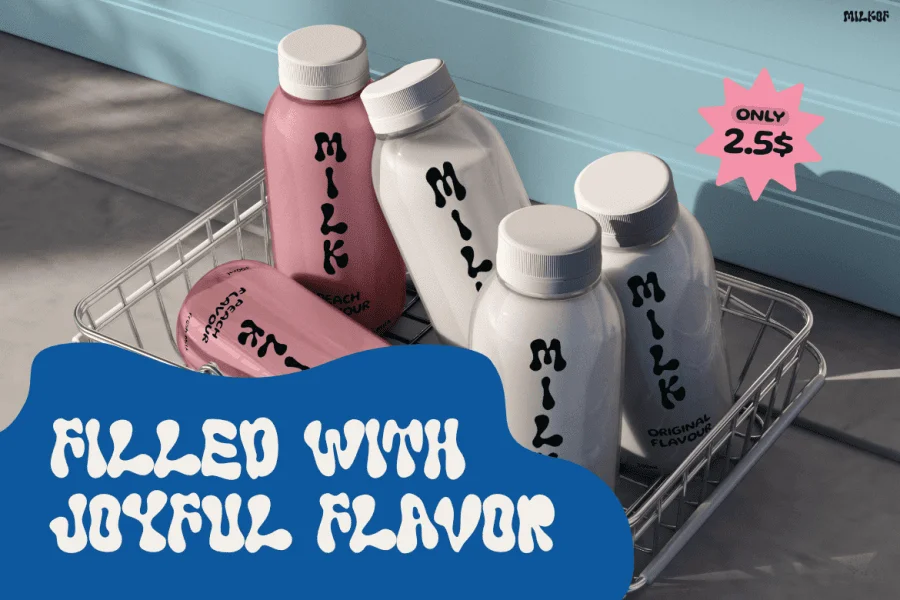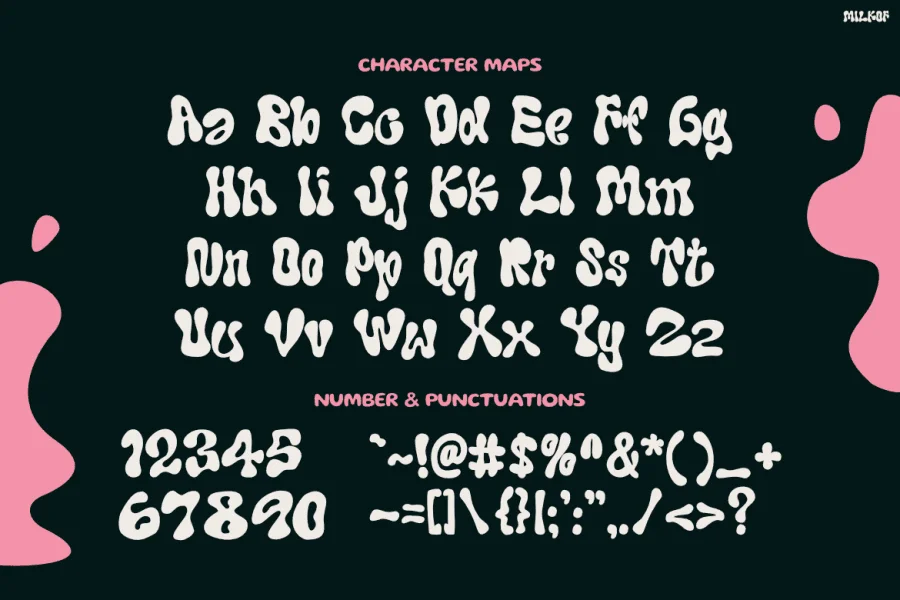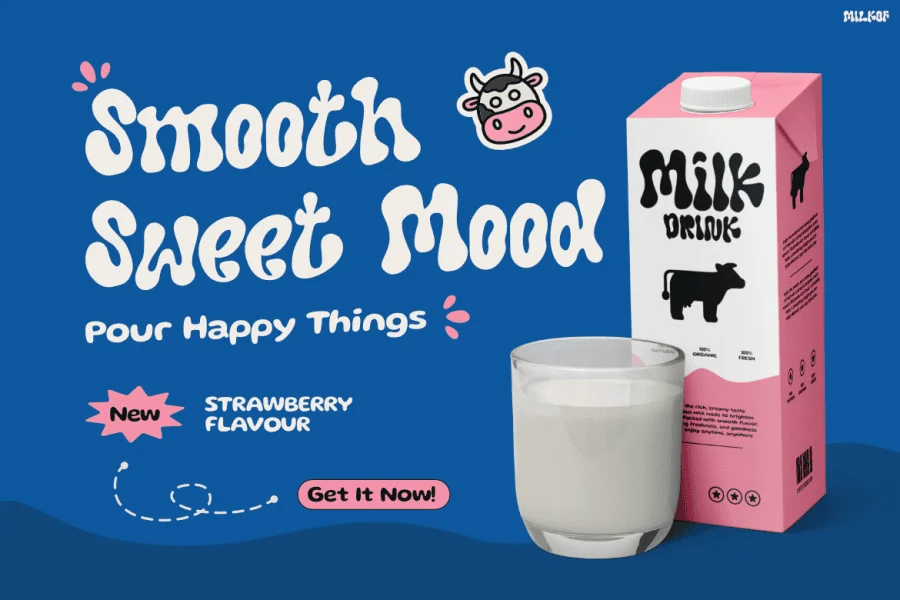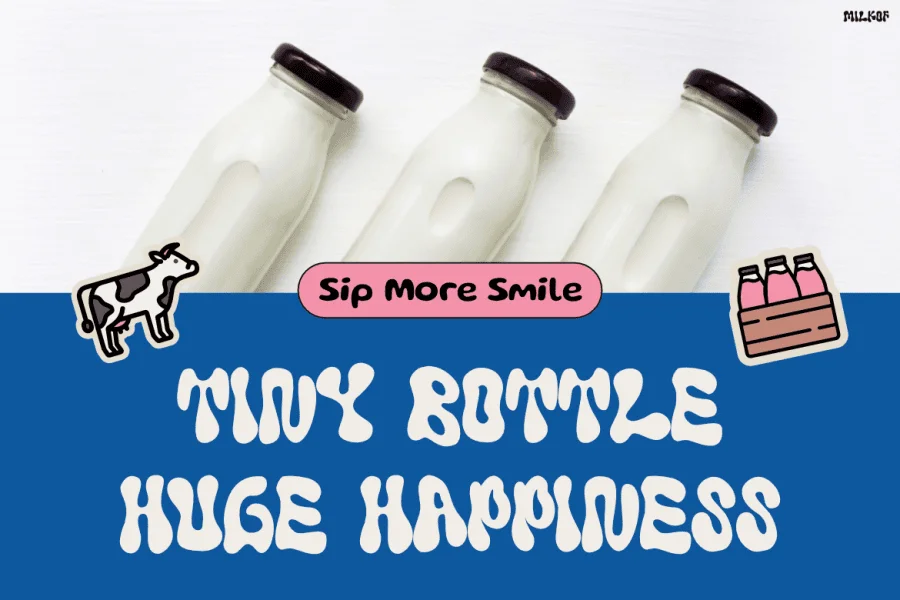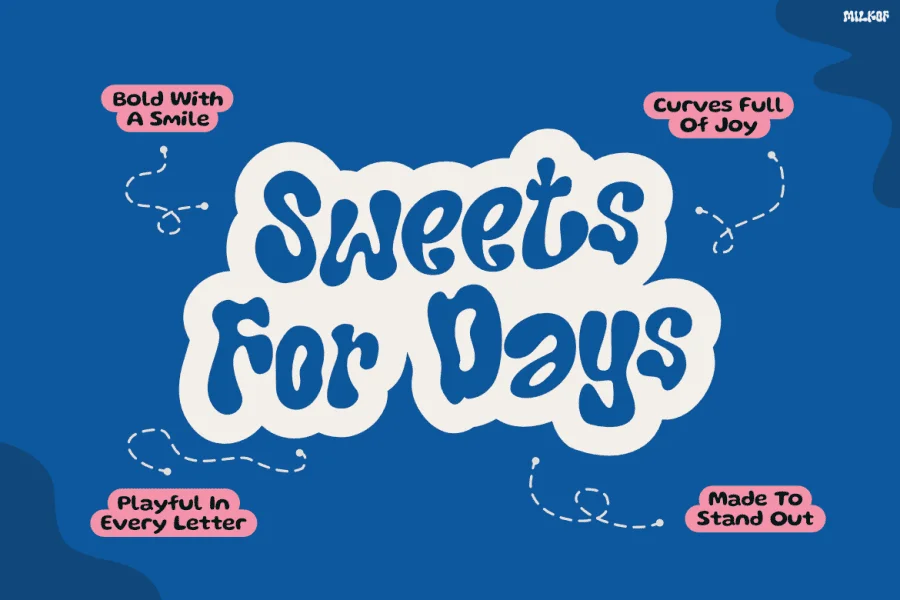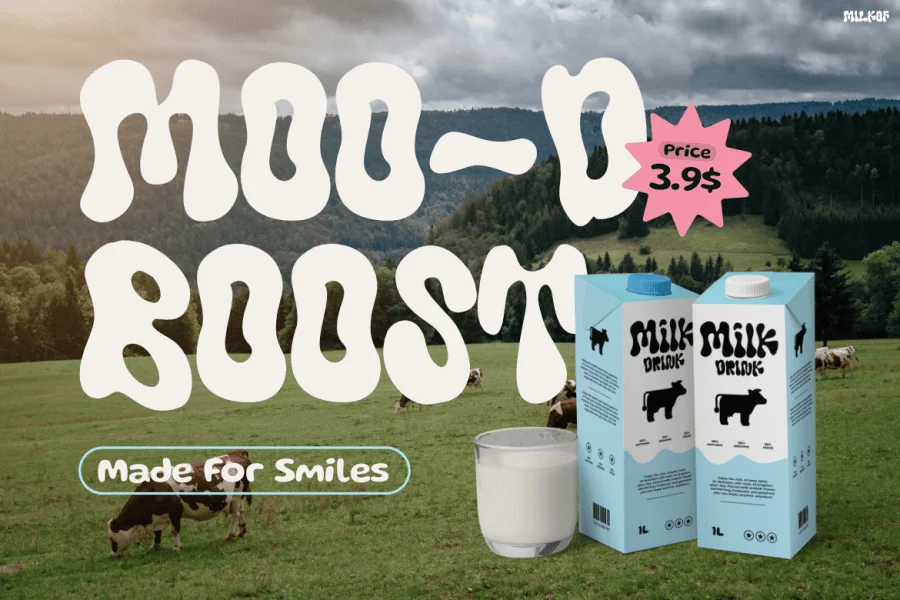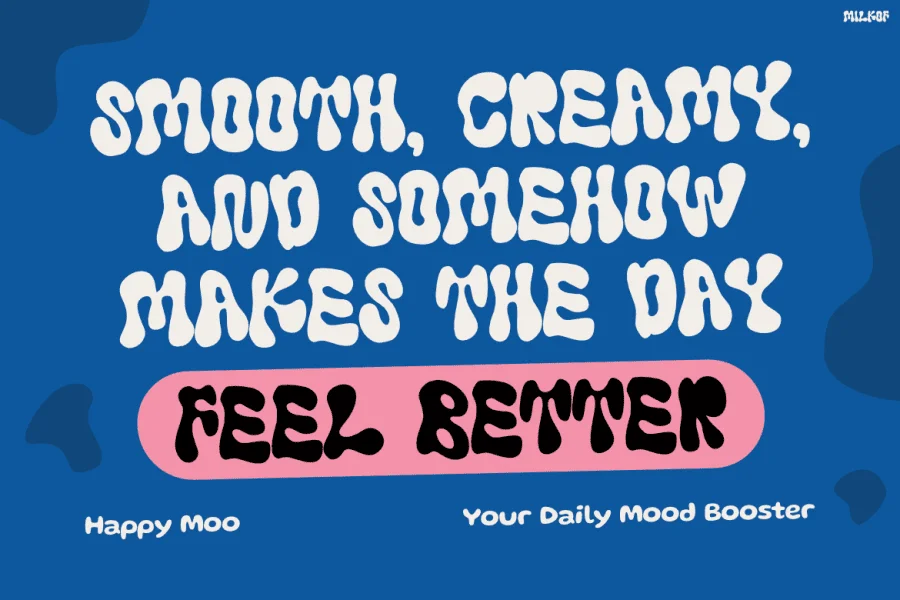
Kids Font Milkof — Cheerful Kids Font With Milky Charm
Kids Font Milkof brings a delightful bubble-style design with soft rounded shapes, sweet curves, and a cheerful handmade look. Furthermore, the font creates a joyful and friendly atmosphere that instantly grabs attention. Because of its chunky and fluffy letterforms, Milkof feels cute, playful, and full of positive energy. In addition, the smooth organic structure gives every headline a fun and memorable appearance while maintaining excellent readability. As a result, your designs feel more engaging, adorable, and perfect for young audiences.
Moreover, Milkof combines cartoon-inspired charm with modern creativity, so it works beautifully for branding, packaging, and social media content. Whether you are designing kids’ products, snack packaging, event posters, or educational materials, this font helps every project feel more lively and approachable. Therefore, Milkof is an excellent choice for creators who want typography that looks fun, sweet, and full of character.
Kids Font Milkof Perfect For Creative Projects
Best Used By:
Kids product brands
Milk and dairy packaging
Children’s book designers
Toy and game creators
Kindergarten promotions
Cartoon and animation projects
Birthday party designs
Educational materials
Social media content creators
Additionally, Milkof performs beautifully across both print and digital media because of its versatile and playful style. Consequently, your branding can look more charming, memorable, and family-friendly.
Make Every Design Extra Sweet